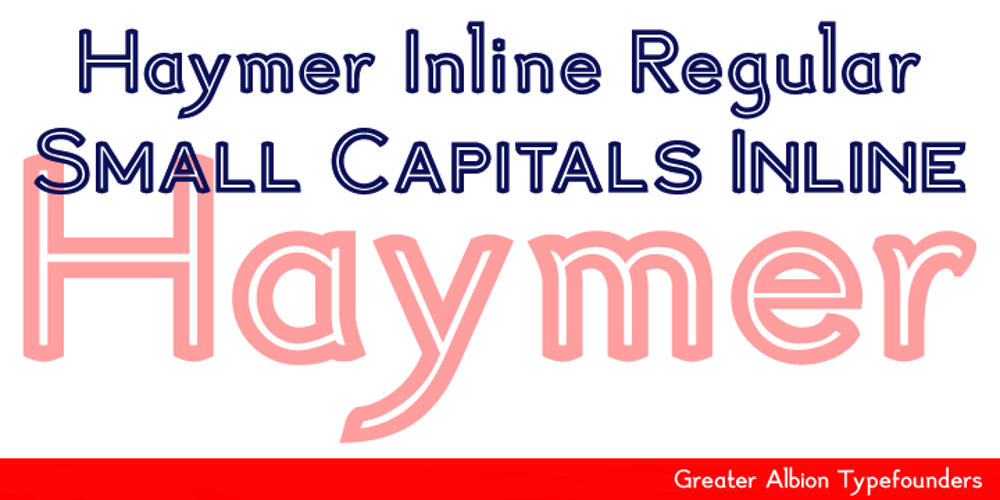
Haymer
Haymer font
Haymer Font Family was designed by Paul James Lloyd and published by Greater Albion Typefounders. Haymer contains 18 styles and family package options. Haymer stands at the apogee of legibility and clarity. Its design embodies symmetry, even stroke widths and a subtle rounded quality to give an instinctive appeal to the reader and to the designer. Haymer is modern yet characterful and is ideal for use as a text family, online and wherever instant easy readability is required. An extensive family is offered, in four weights, regular and condensed widths, lower case and capital (small and petite) forms as well as display inline faces.